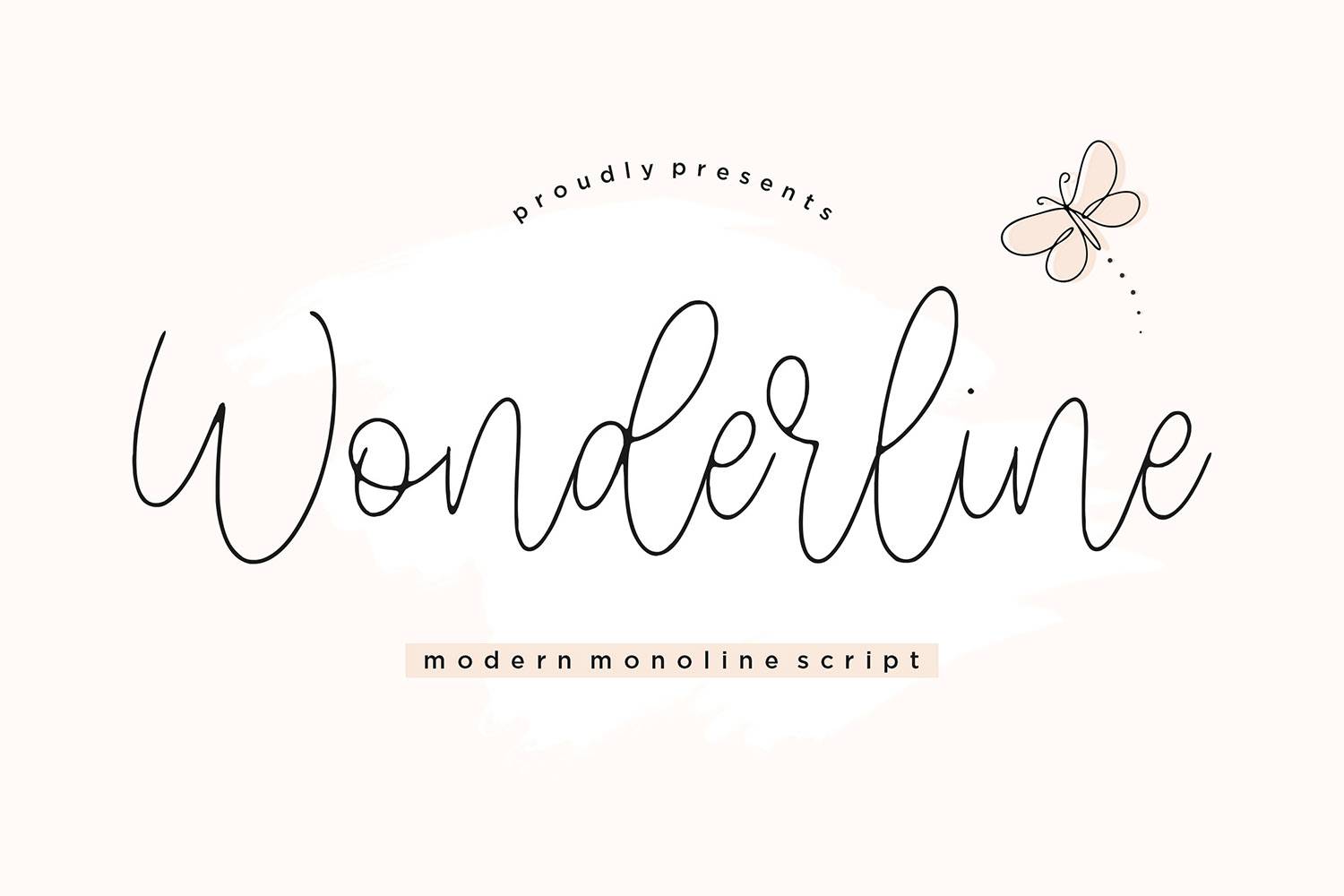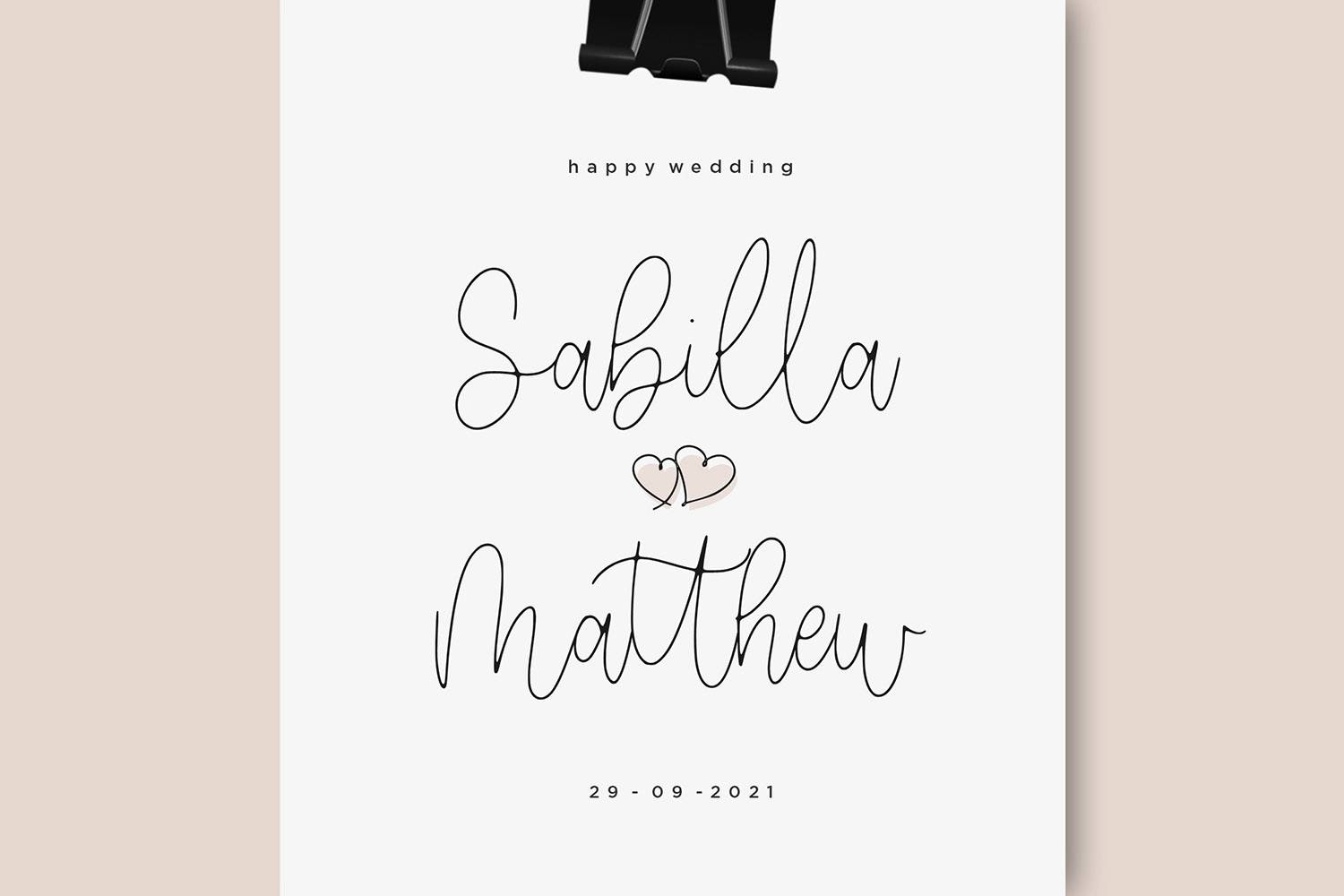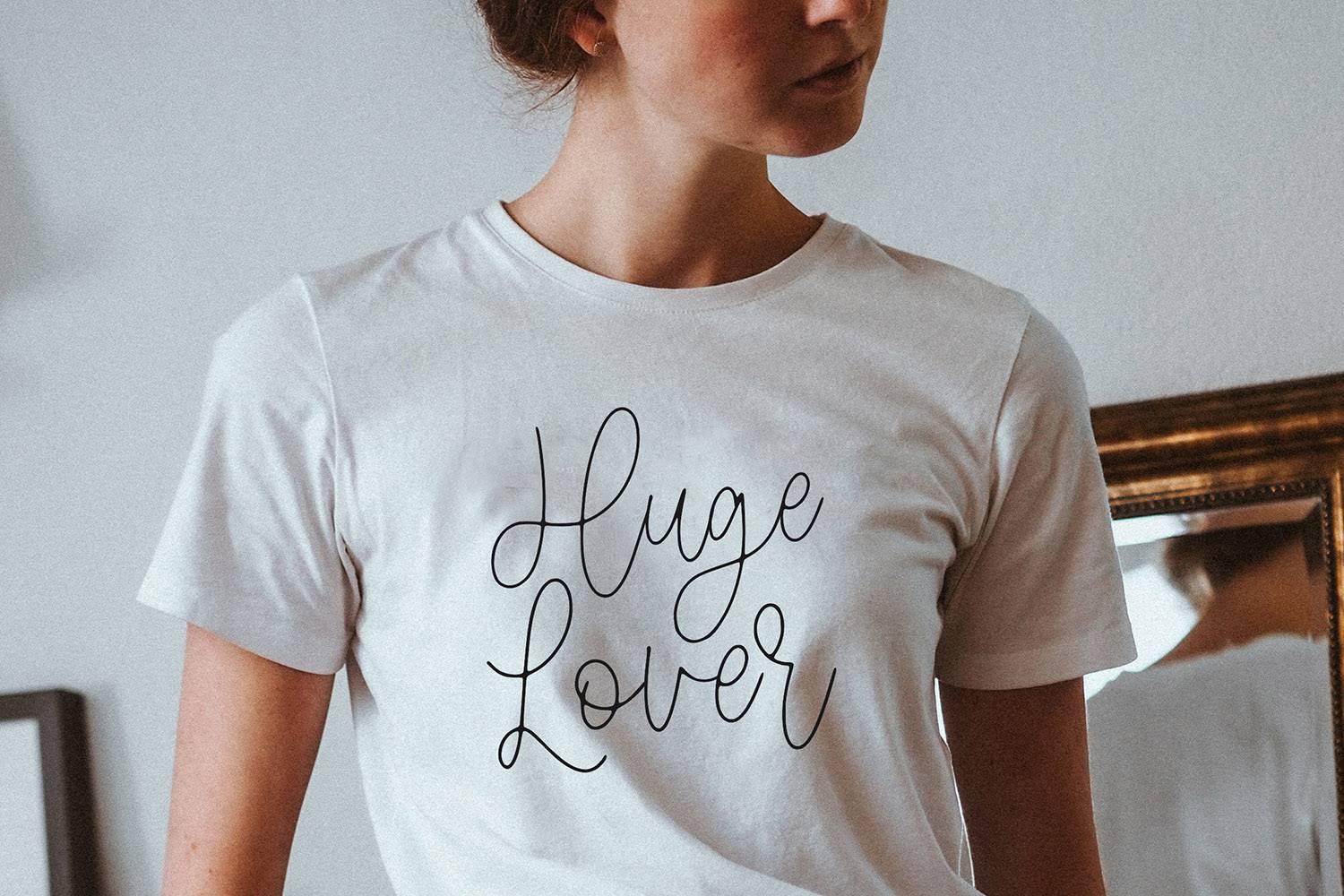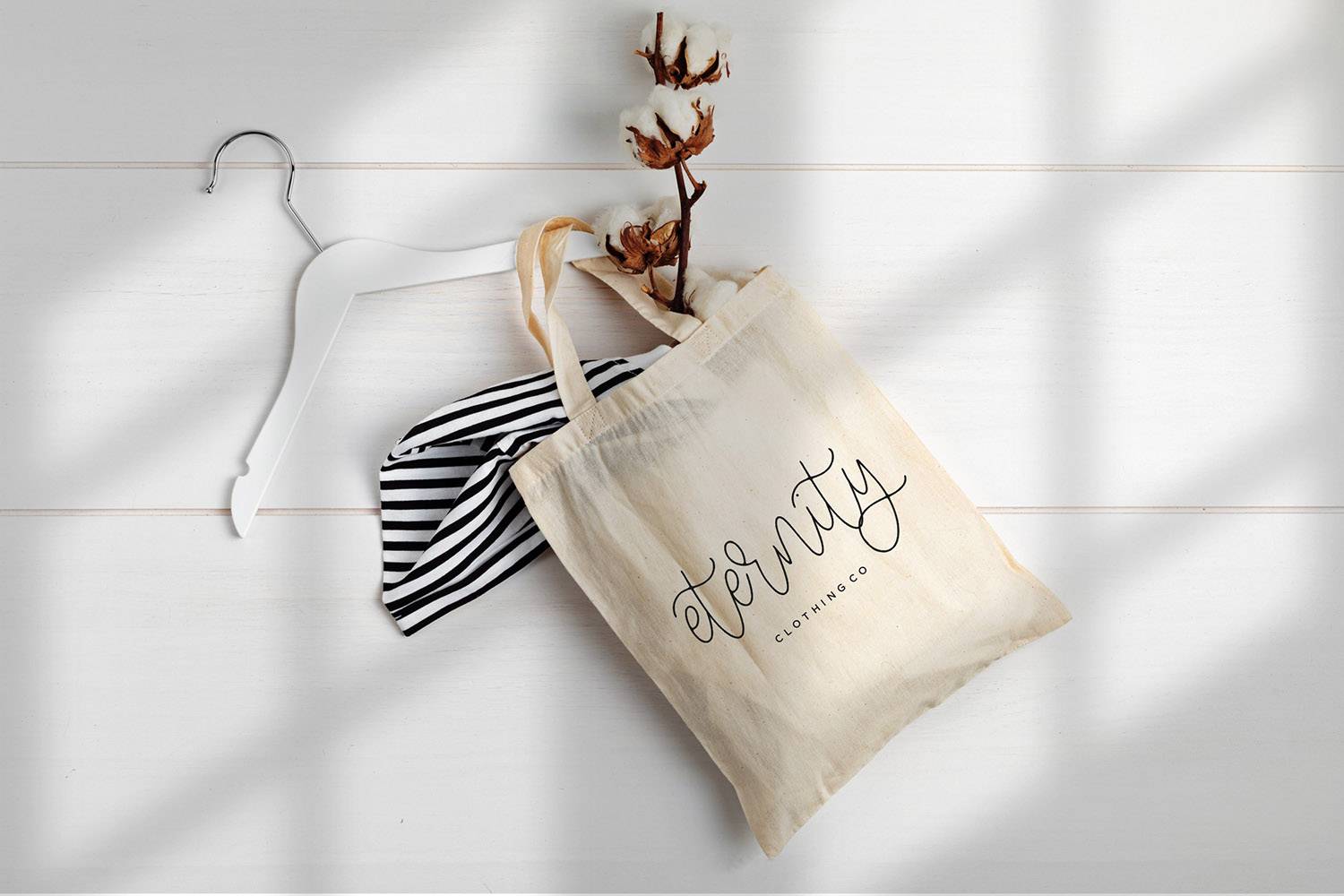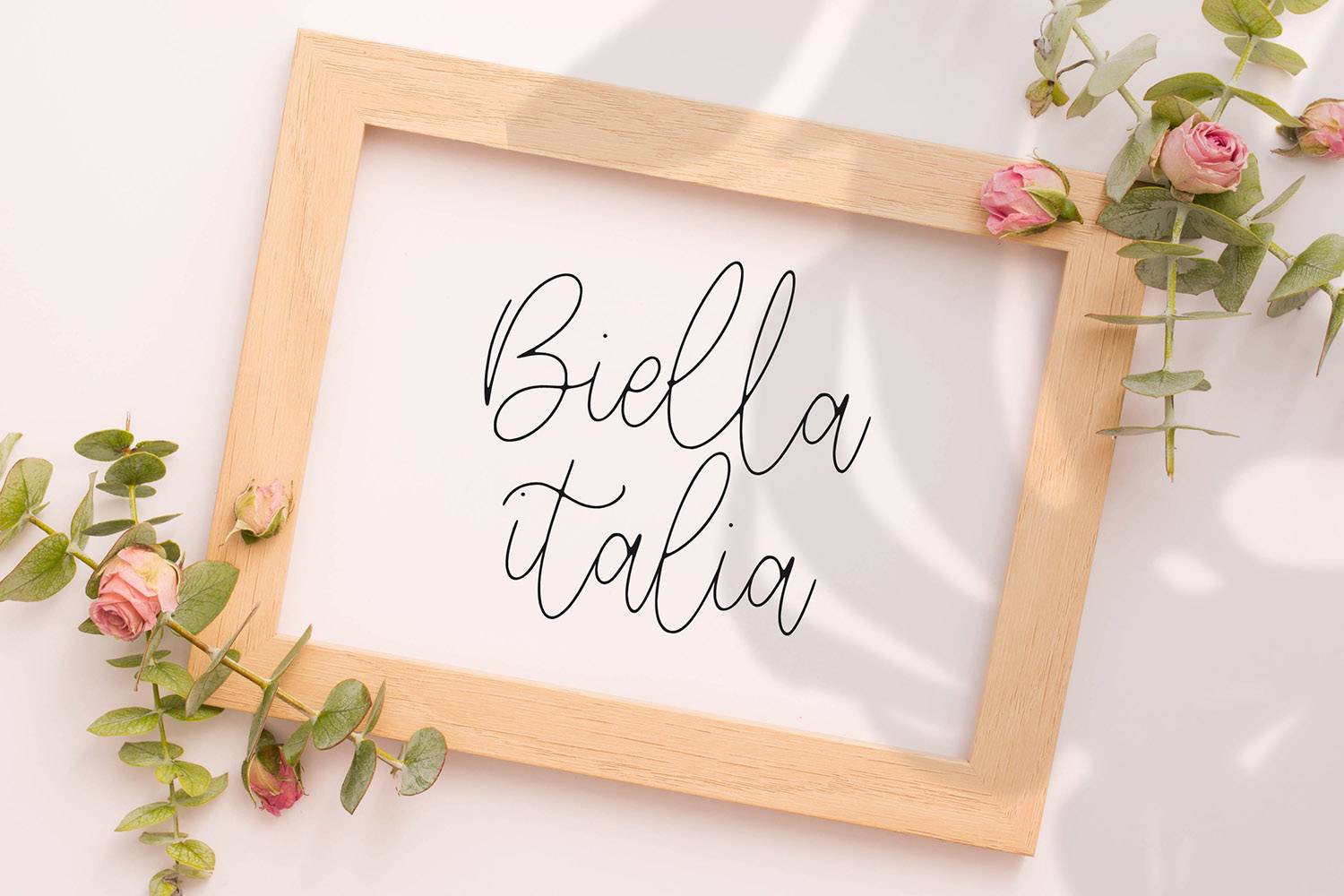
Wonderline is a light, elegant script font with flowing, delicate strokes that create a graceful and airy feel. Its tall x-height and smooth, connected letterforms give it a modern handwritten style perfect for adding a personal, sophisticated touch to invitations, branding, and editorial projects. This font works beautifully in designs that seek charm and refinement with a subtle, artistic flair.
Wonderline Font
About Wonderline Font